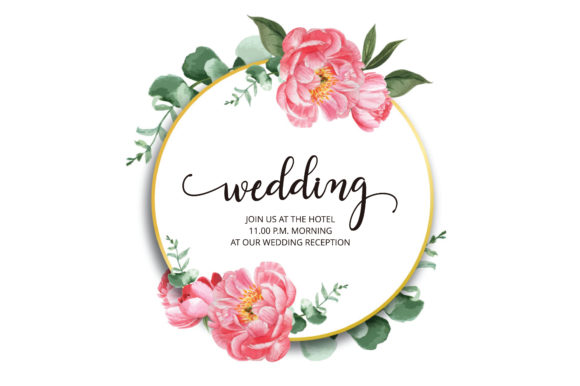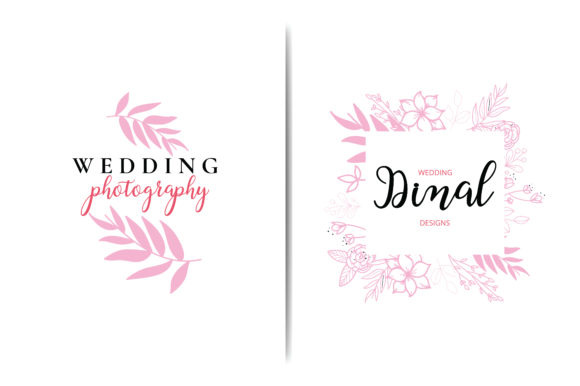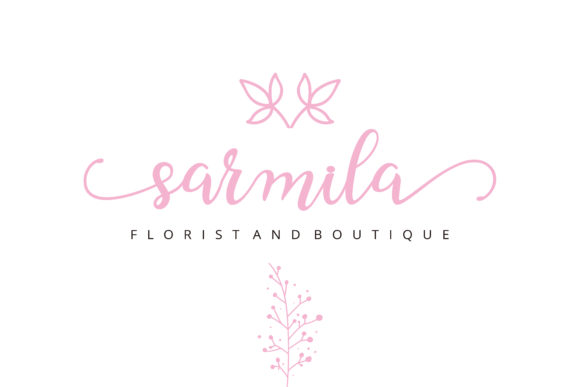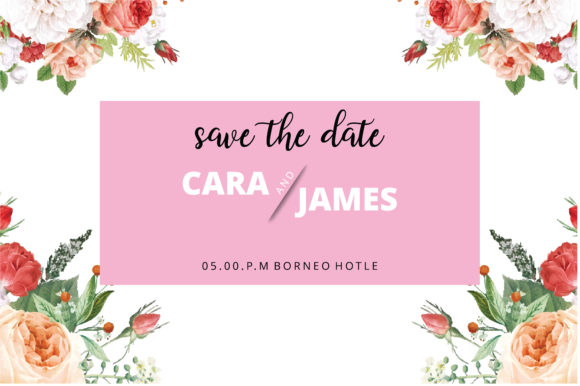
About Loving Font
Loving is a beautiful script font that works well for a variety of designs. Get inspired by its playful romantic charm! Add this lovely freebie to your creations and take your designs to the next level!